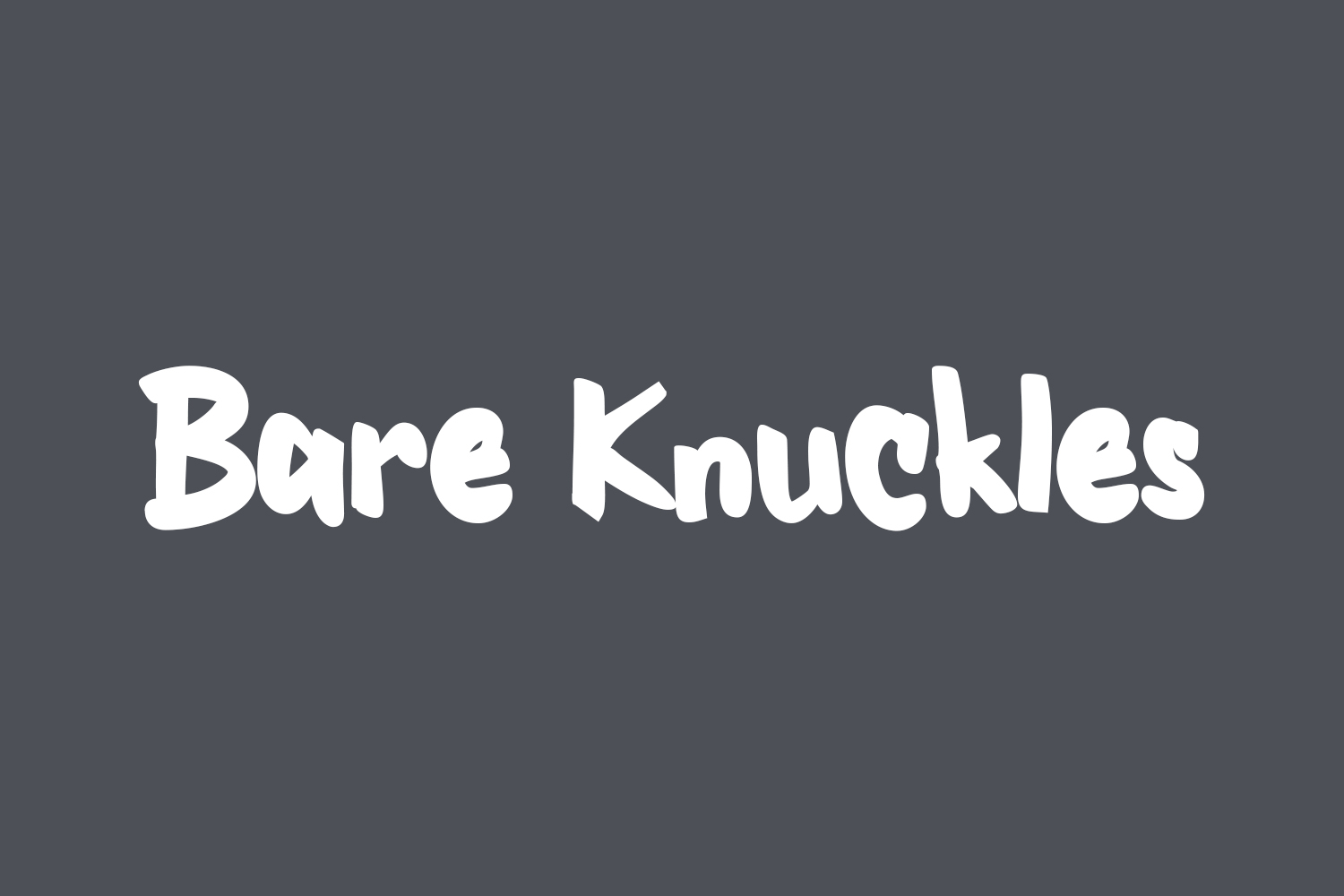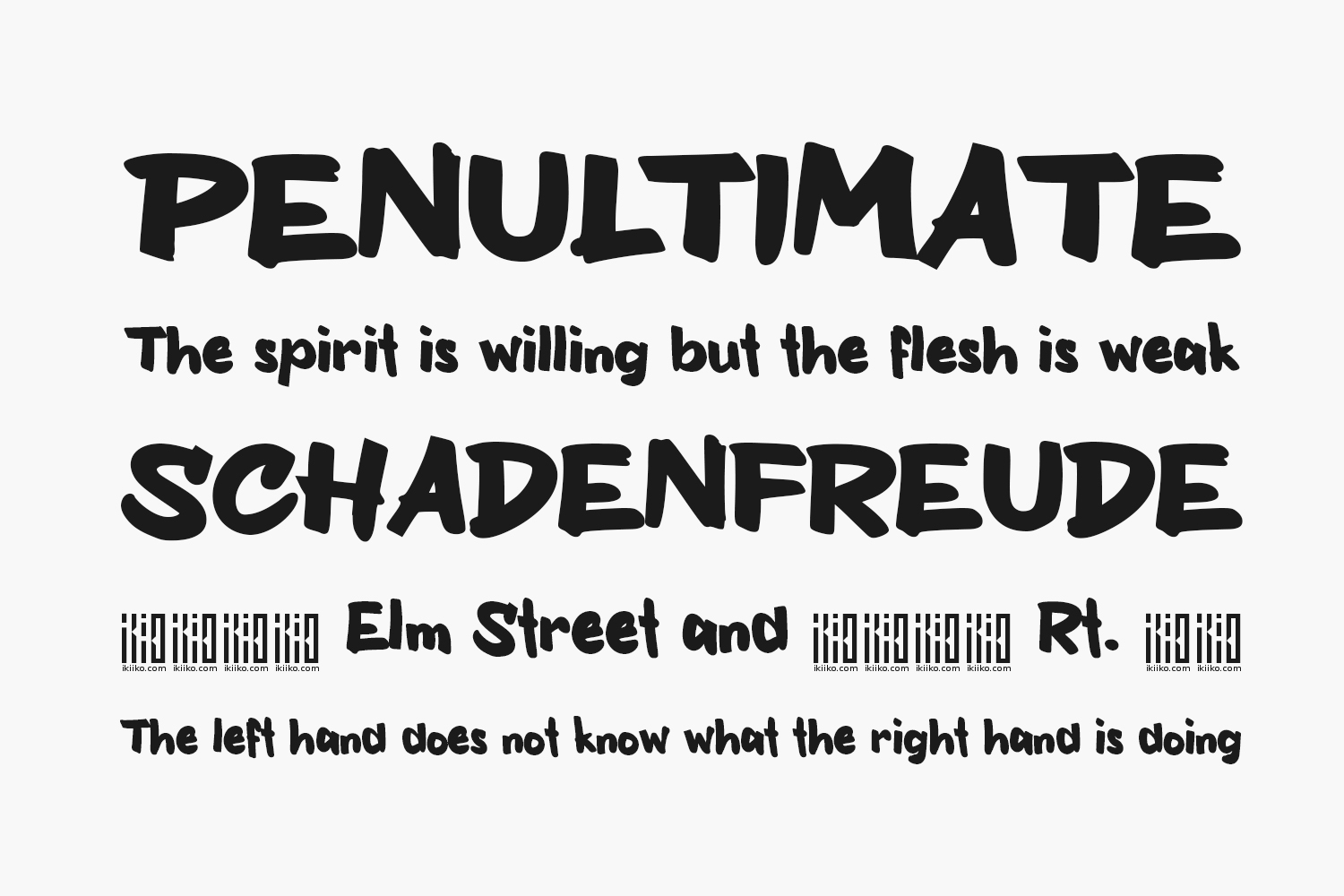
Unleash the power of Bare Knuckles Free Font, a bold and expressive brushed display font infused with street art vibes. Ideal for extreme sports events, posters, flyers, magazine covers, streetwear brands, or adding a touch of style to any background image, this typeface brings raw energy to your designs. Elevate your visual impact with the edgy appeal of Bare Knuckles. Bare Knuckles Free Font was designed by Ikiiko Type is a demo and free for personal use only. Please purchase the full version for commercial use.